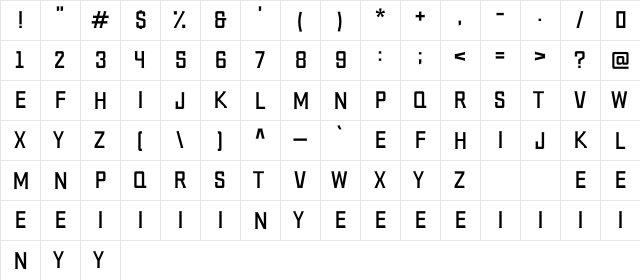
Uniform Regular Regular
Design Context for Uniform Regular Typeface
Uniform Regular offers clean, dependable letterforms without strong stylistic allegiance, making it a practical choice for designers who need flexibility.